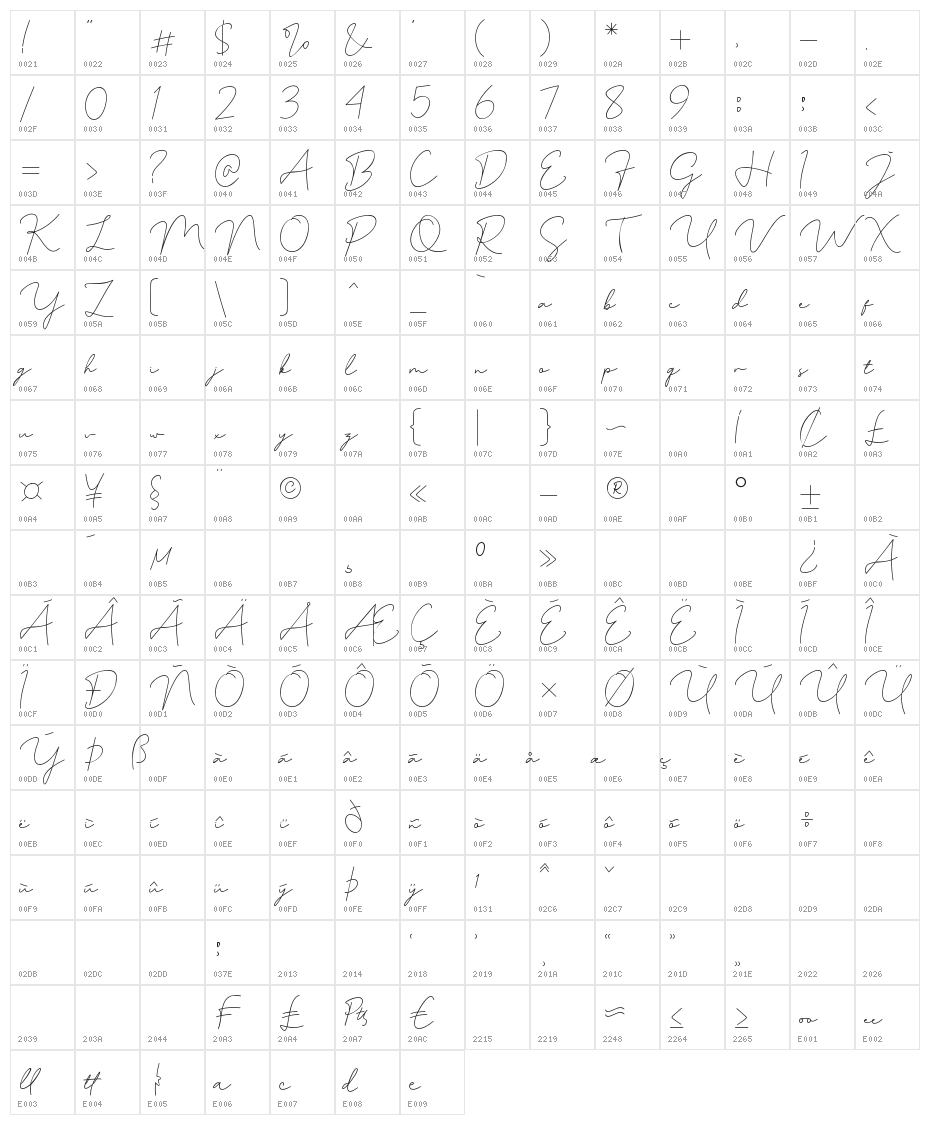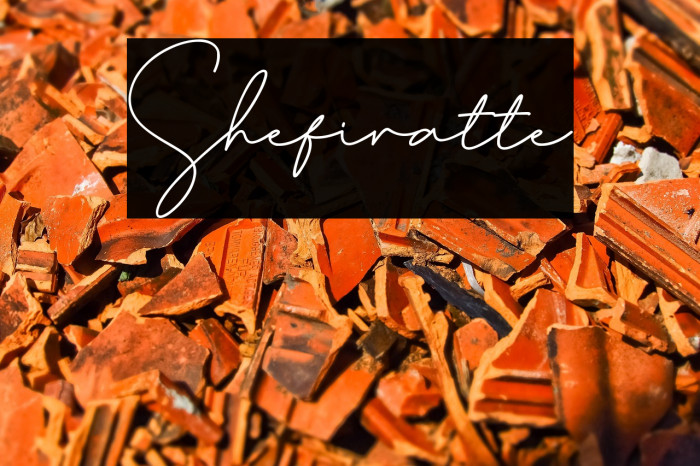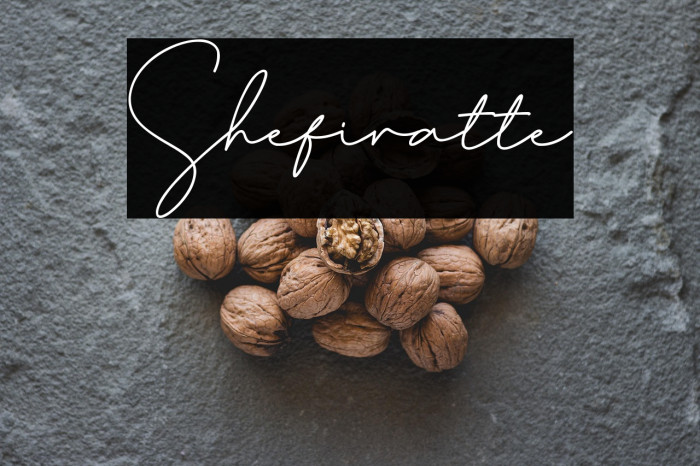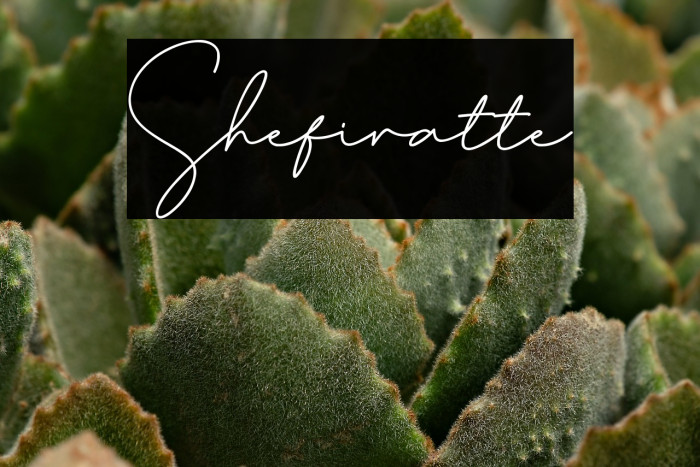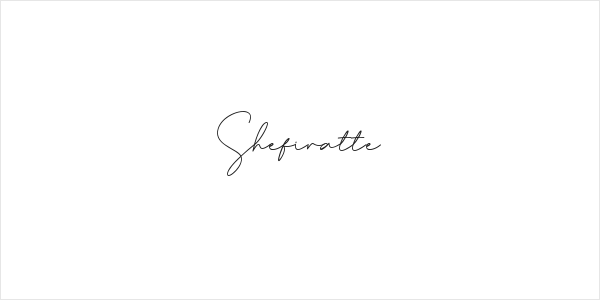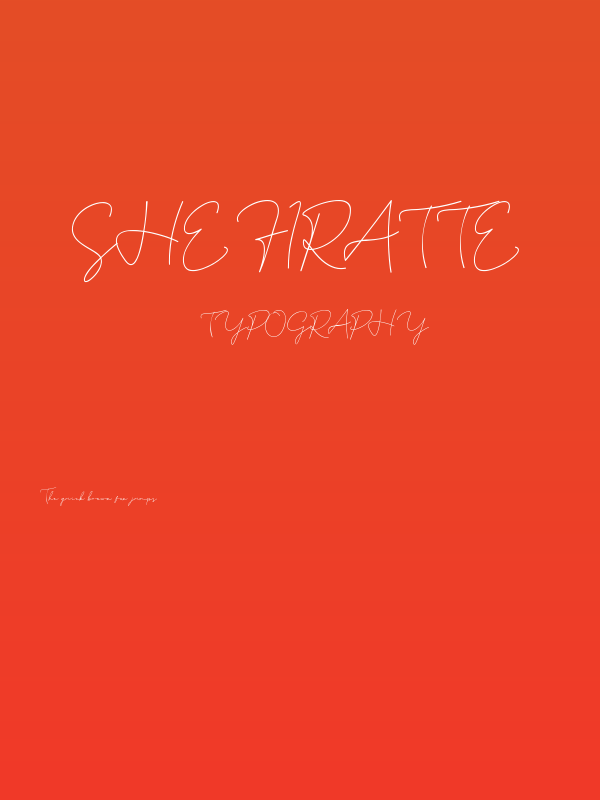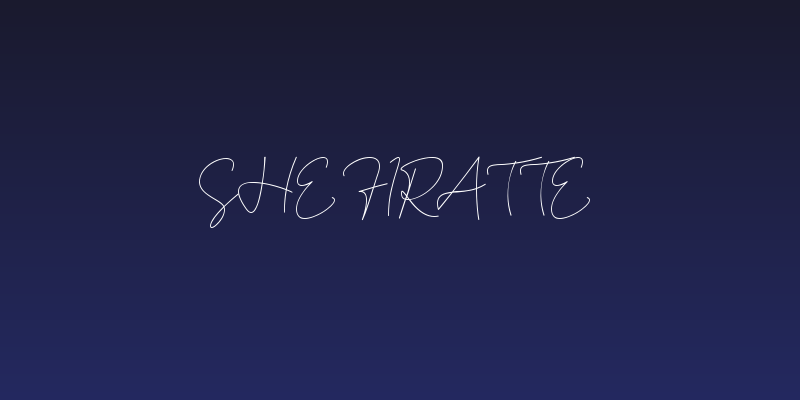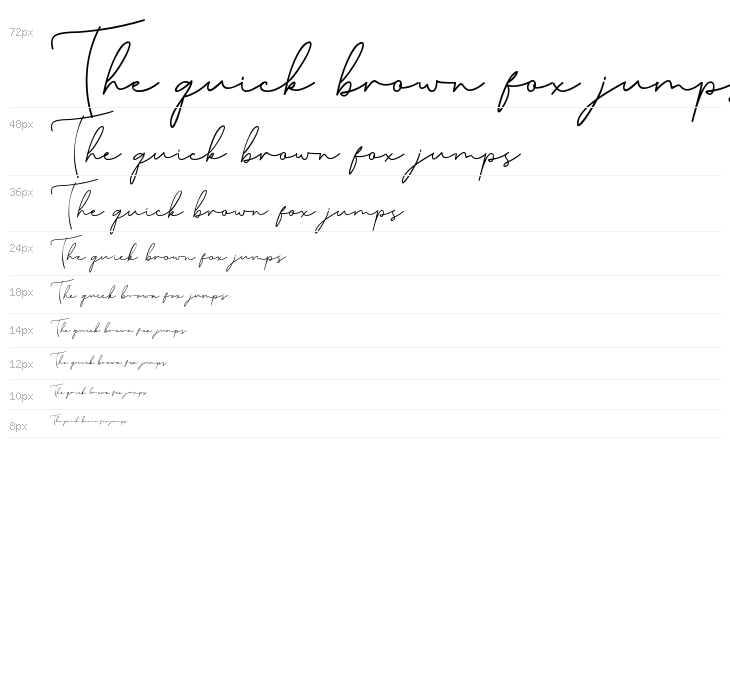
Shefiratte Font
Shefiratte Description
This elegant script font features a flowing, cursive style with smooth, continuous strokes that mimic natural handwriting. The uppercase letters are slightly larger and more ornate, while the lowercase letters maintain a consistent, fluid motion. The numerals are distinct and easy to read, with a slight slant that complements the overall cursive theme. Special characters are included, maintaining the same graceful style. The font's delicate lines and airy spacing give it a light, sophisticated appearance, making it suitable for a variety of creative projects.
Overall StyleElegant, Handwritten
Use CaseLogos, Invitations, Personal Branding
Proposed ProjectsIdeal for wedding invitations, greeting cards, personal branding, and elegant logos.